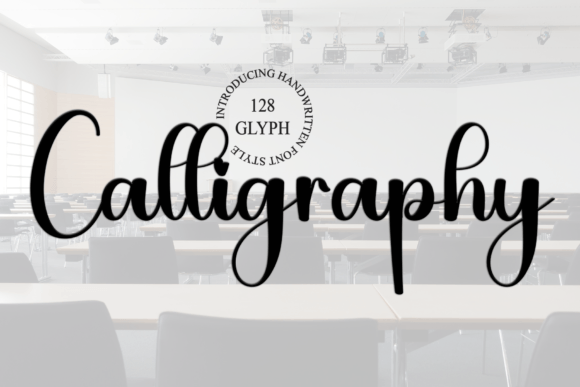
The Art of Elegant Typography: Unlocking the Charm of Calligraphy Font
Have you ever stumbled upon a beautiful hand-drawn font that makes you stop and take a closer look? For many designers, it’s that ‘aha’ moment when inspiration strikes, and creativity flows. I still remember the thrill of discovering a stunning Calligraphy Font that instantly added a touch of warmth to my design project. Its fluid strokes and organic lines seemed to dance on the page, exuding a sense of casual elegance that’s hard to resist.
Calligraphy Font is a beautiful handwriting font that’s perfect for designers looking to add a personal touch to their work. Whether you’re creating a brand identity, designing an invitation, or crafting social media graphics, this font is sure to elevate your design and leave a lasting impression. Its versatility and charm make it a valuable asset for any designer looking to add a touch of personality to their work.
Calligraphy Font Key Features
- Unique Characteristics: Features elegant, cursive, and handwritten styles, with intricate flourishes and ornaments, making it ideal for creative and artistic projects
Calligraphy Font Review
Overall, I’d say the Calligraphy Font is a beautiful addition to any design project. ✨ It’s perfect for creating a touch of elegance and sophistication in invitations, wedding stationery, or even branding materials.
- It’s highly customizable, allowing you to tweak the font’s style, size, and spacing to fit your design needs.
- The font is incredibly versatile, suitable for a wide range of industries and design styles.
- It’s a great way to add a personal touch to your designs and make them stand out from the crowd.
However, there are a few limitations to keep in mind: ⚠️
- It can be quite time-consuming to set up and adjust, especially for those who are new to font customization.
- The font may not be suitable for large blocks of text, as it can become difficult to read.
- It’s not ideal for digital displays, as it may not render as intended on smaller screens.
In terms of overall impression, I’d say the Calligraphy Font is a great choice for designers who want to add a touch of luxury and sophistication to their projects. While it may have some limitations, the benefits far outweigh the drawbacks. With a little patience and practice, you can create truly stunning designs with this beautiful font.
Tips for Getting the Most Out of Calligraphy Font
Use a calligraphy font to add a touch of elegance and sophistication to your designs. Experiment with different font sizes, colors, and styles to create a unique look. Use a calligraphy font to create headings, titles, and other text elements that require a high level of visual impact.
Calligraphy fonts are commonly used in wedding invitations, certificates, and other formal documents. They’re also used in branding and marketing materials, such as business cards and brochures. In addition, calligraphy fonts are used in creative projects, such as artwork and illustrations.
Can I use a calligraphy font for body text?
While calligraphy fonts can be beautiful and elegant, they are often not suitable for body text due to their ornate and decorative nature. Calligraphy fonts are typically best used for titles, headings